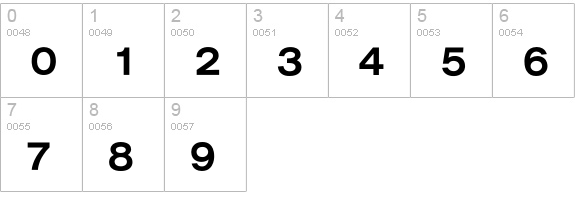
Akzidenz-Grotesk Extended Medium is a balanced, medium-weight, extended-width variant in the Akzidenz typeface family \xE2\x80\x94 well suited to sub-headlines, navigation, and balanced editorial work.
Akzidenz-Grotesk Extended Medium font is a sleek and modern typeface that exudes sophistication and clarity. With its extended character set, this font is perfect for adding a touch of elegance to any design project. Whether used for headlines, body text, or branding purposes, Akzidenz-Grotesk Extended Medium font delivers a clean and professional look that commands attention. Best of all, this versatile font is available for free download at FontsMarket.com, making it accessible to designers, creatives, and enthusiasts alike. With its bold and eye-catching appearance, Akzidenz-Grotesk Extended Medium font is sure to make a lasting impression in any visual communication.